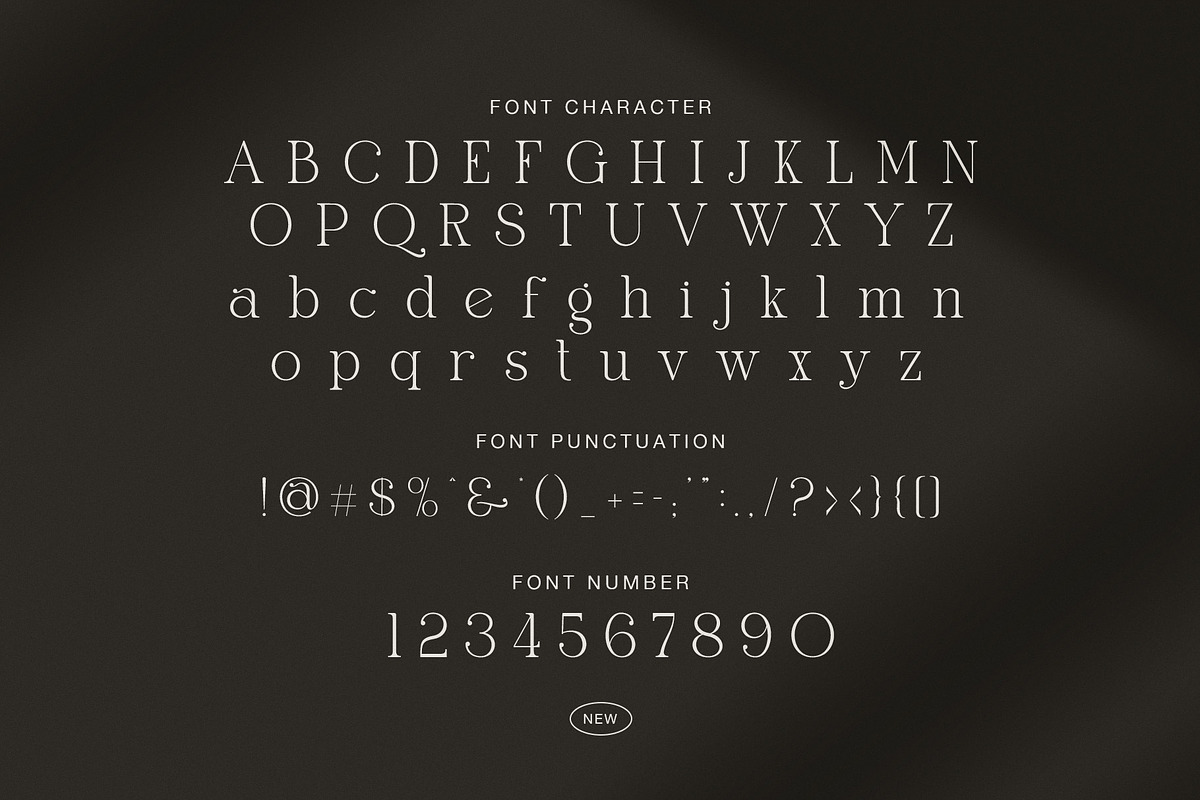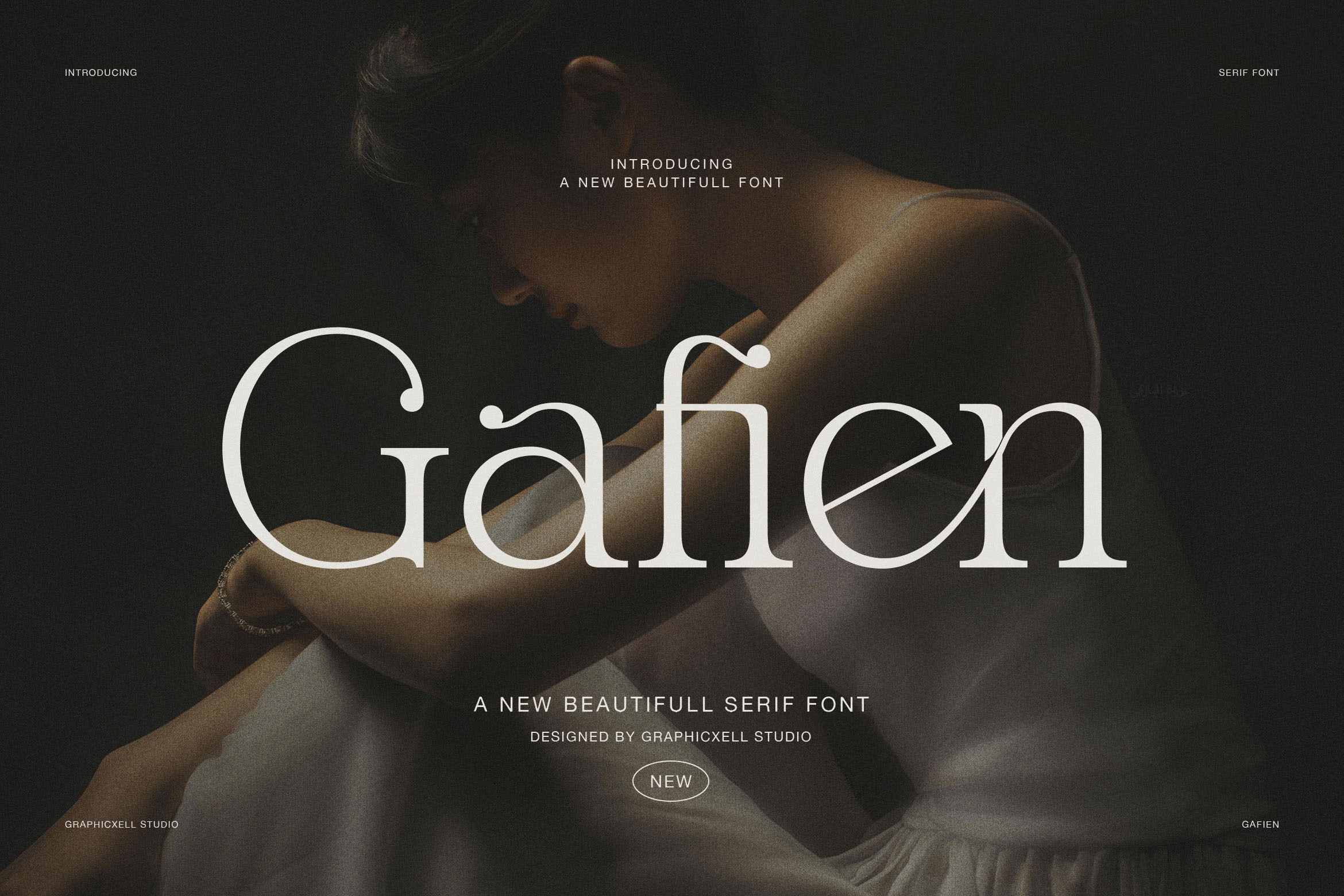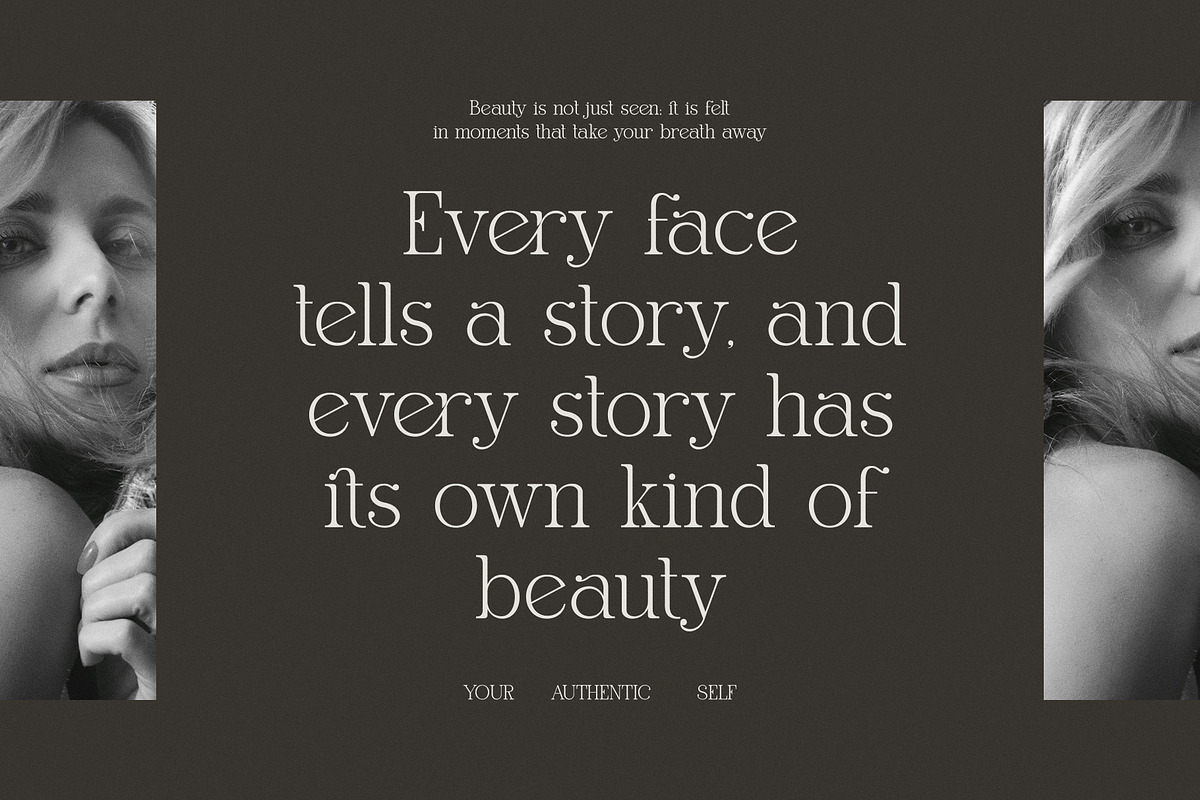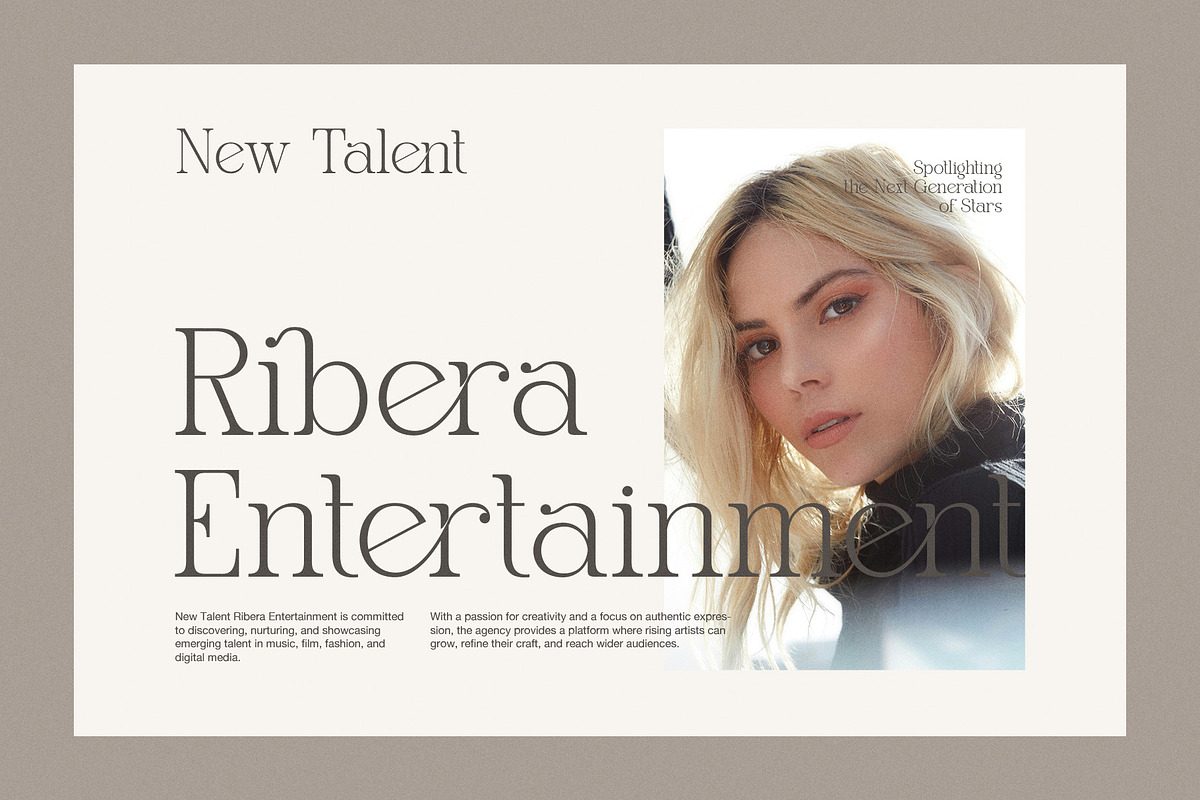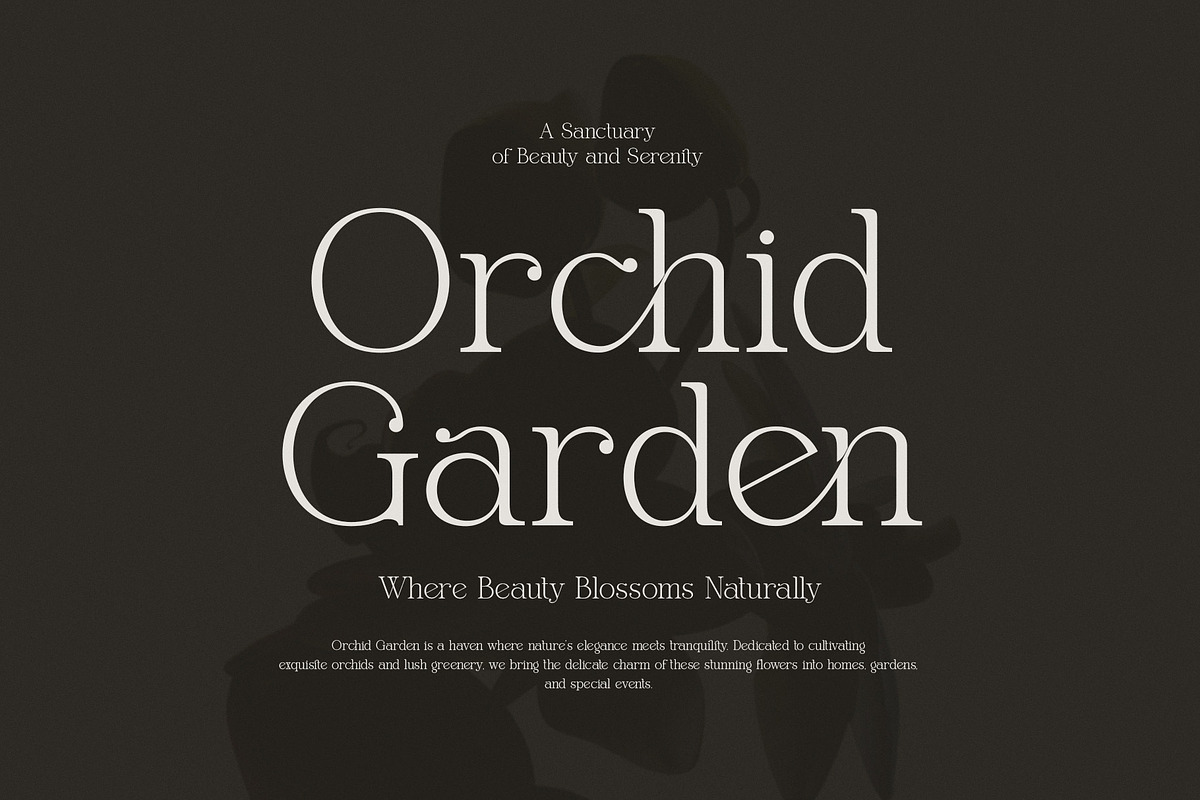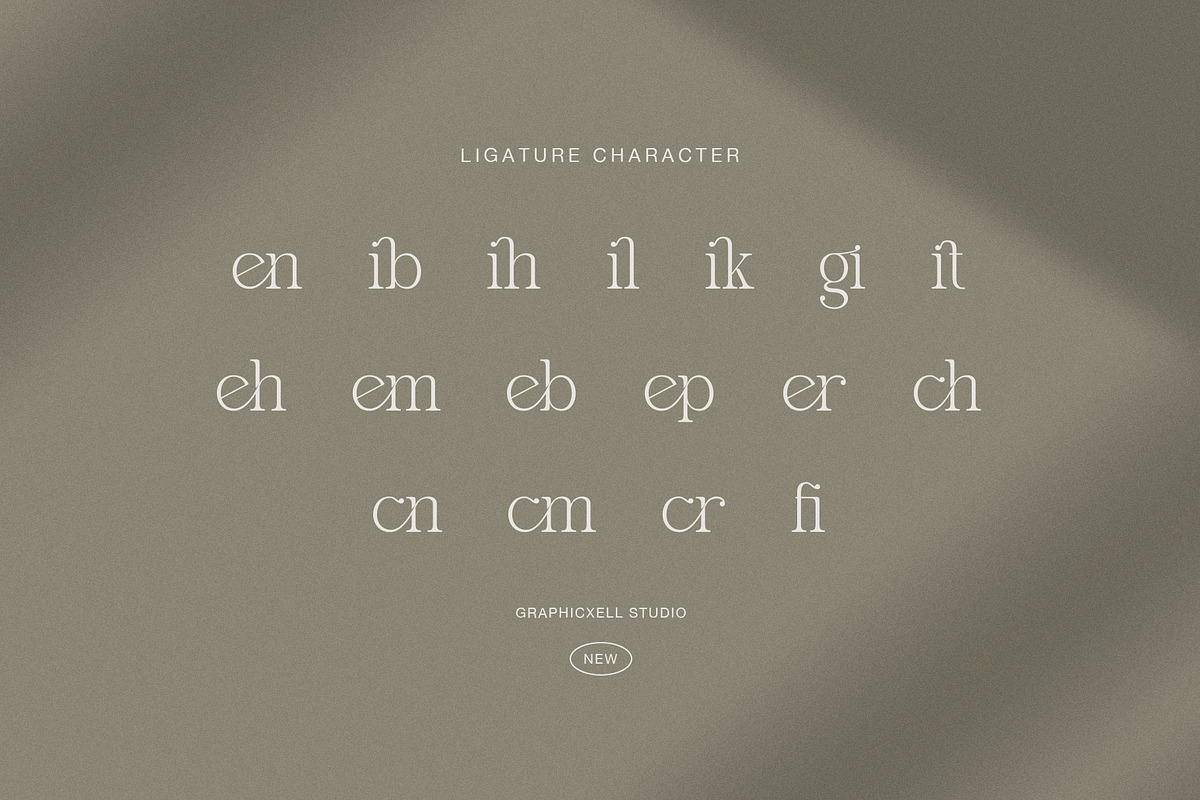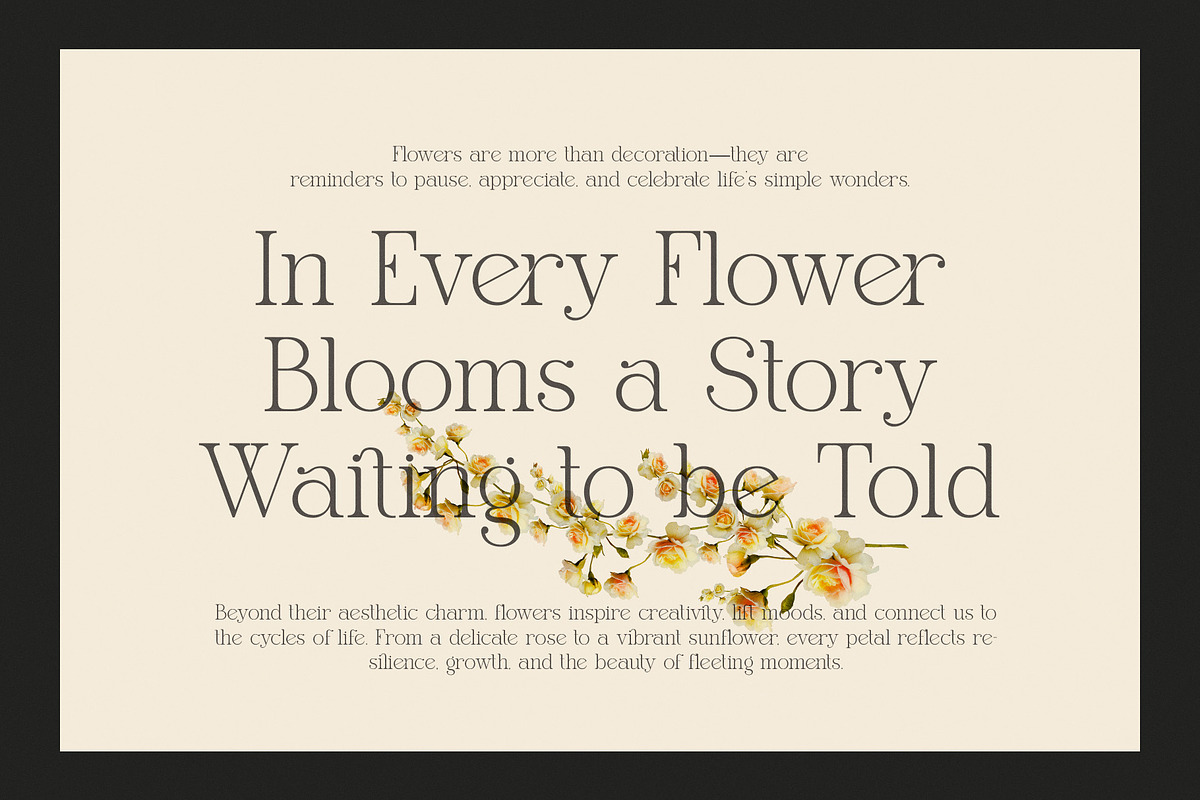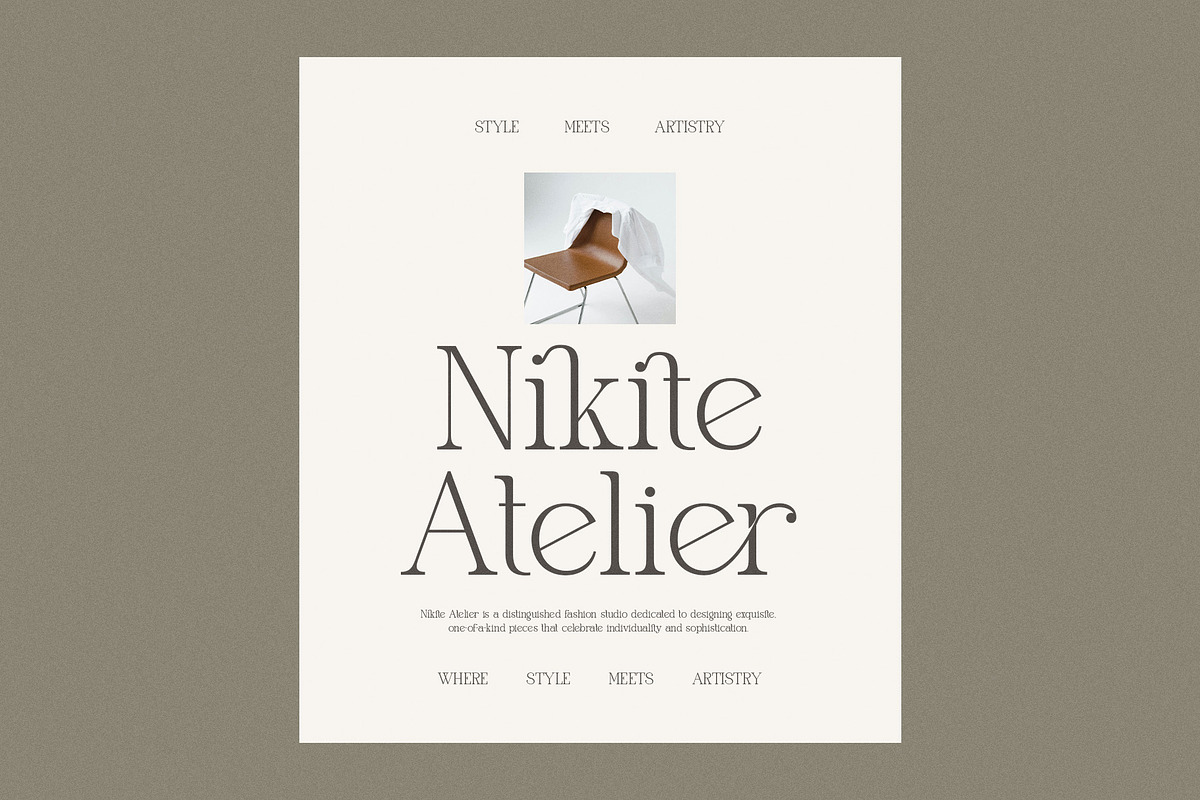
Gafien Elegant Modern Serif Font
Gafien Elegant Modern Serif Font is a refined typeface designed to express beauty, calm, and quiet luxury. Its soft contrast, slender strokes, and graceful curves create a timeless appearance that feels both classic and contemporary. Moreover, each letterform is carefully balanced, so headlines look polished while body text remains readable. As a result, this font works beautifully for premium branding and editorial layouts.
The uppercase characters present a poised and sophisticated tone. Meanwhile, the lowercase set introduces subtle charm through delicate terminals and flowing shapes. Because of this harmony, the font feels warm rather than rigid. In addition, the generous spacing allows words to breathe, which enhances clarity on both print and digital screens.
This typeface also includes elegant ligatures that connect letters smoothly. Therefore, designers can create a more natural rhythm in logos and titles. Numbers and punctuation match the refined style, ensuring visual consistency across every project. Whether used large or small, the font maintains its graceful personality.
Furthermore, Elegant Modern Serif Font shines in projects that require a soft yet confident voice. It pairs wonderfully with minimal layouts, soft photography, and neutral color palettes. Consequently, it becomes an ideal choice for brands that want to appear trustworthy, artistic, and high-end.
Luxury logos and brand identities
Fashion magazines and editorials
Wedding invitations and stationery
Beauty and skincare packaging
Boutique websites and portfolios
Social media graphics and quotes
Floral and lifestyle branding
Because of its versatility, this serif font adapts easily to many creative directions. It can feel romantic, modern, or editorial depending on the layout. Above all, it communicates elegance without looking overly decorative.
If you need a serif font that conveys sophistication while remaining approachable, this typeface delivers outstanding results. It helps transform simple text into a refined visual statement, making every design feel intentional and memorable.